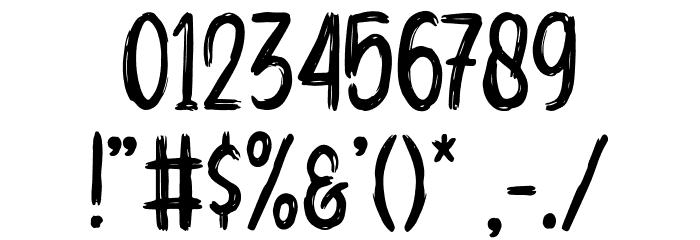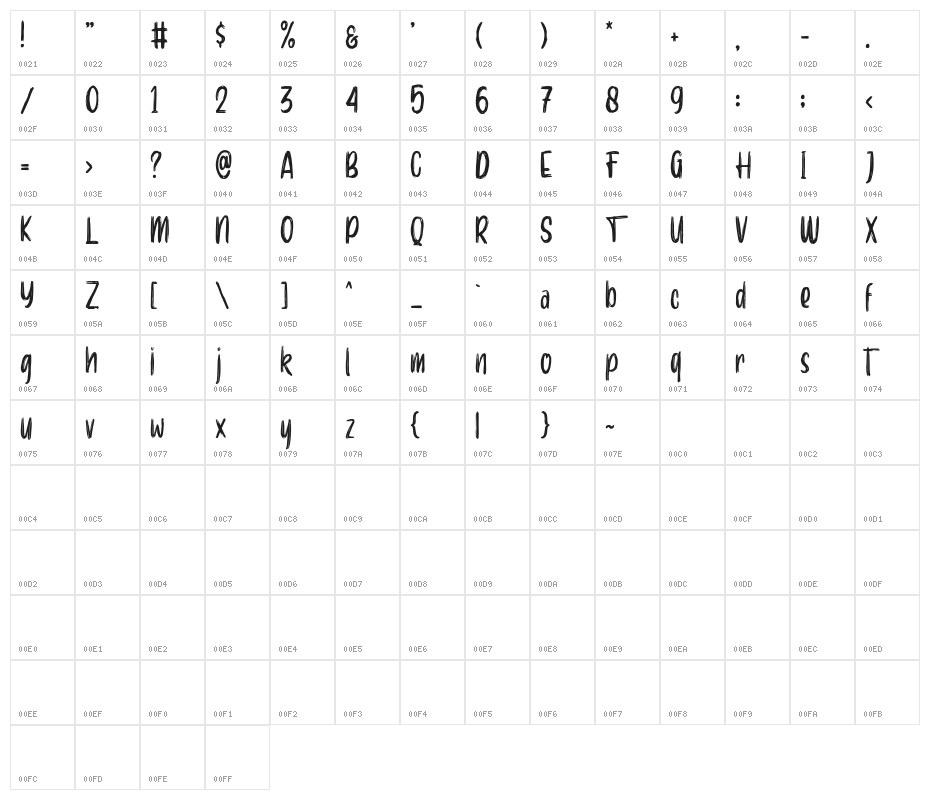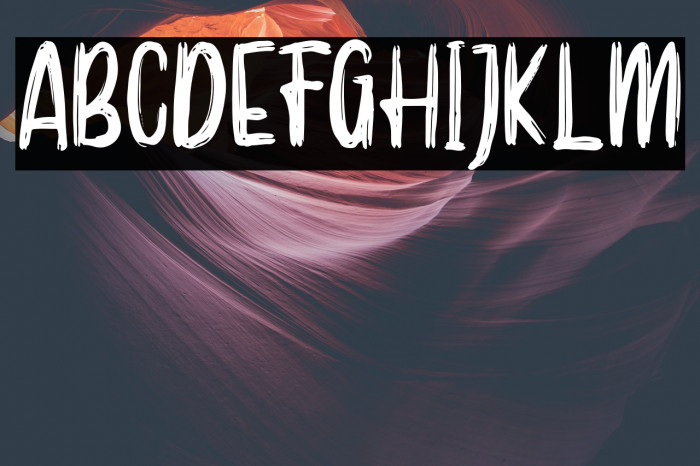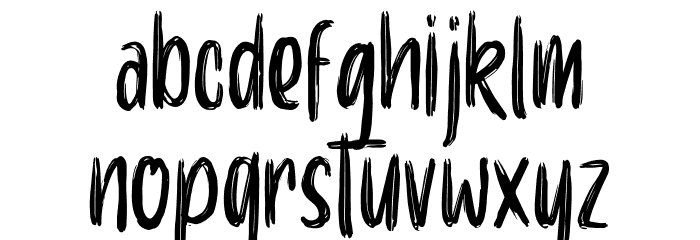
Aerobrush Font
Aerobrush Description
This font features a bold, brush-like appearance with a hand-drawn aesthetic. The strokes are uneven, giving it a dynamic and energetic feel. The uppercase letters are tall and slightly narrow, while the lowercase letters maintain a consistent height, adding to the font's casual and informal style. Numbers and special characters follow the same brush-stroke pattern, ensuring uniformity across all characters. The overall look is artistic and expressive, making it suitable for creative projects that require a personal touch.